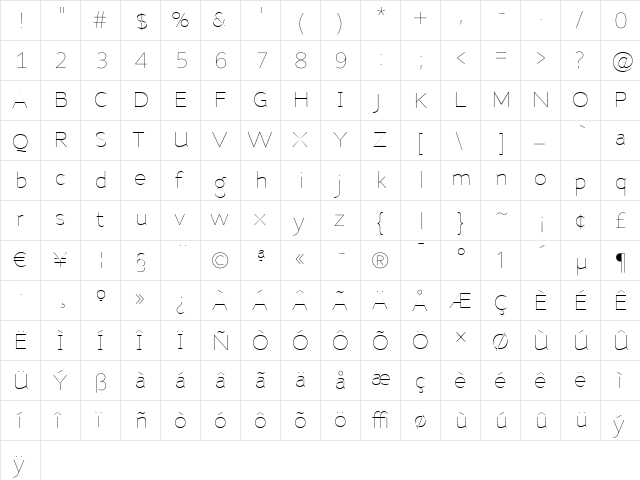
NubianAlt-Thin Thin Font Preview
NubianAlt-Thin Thin
NubianAlt-Thin Thin Font Details
| Style | Thin |
| Foundry | \ G Type Designed and digitized by Nick Cooke |
Design Context for NubianAlt-Thin Typeface
NubianAlt-Thin takes a measured approach to typography — its balanced proportions and neutral character make it a reliable workhorse for both digital and print work. The delicate stroke weight brings airiness and refinement to layouts.